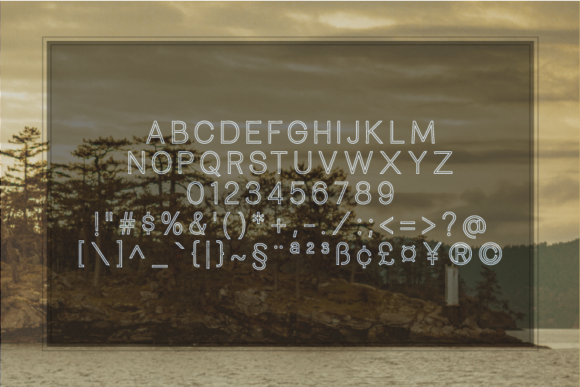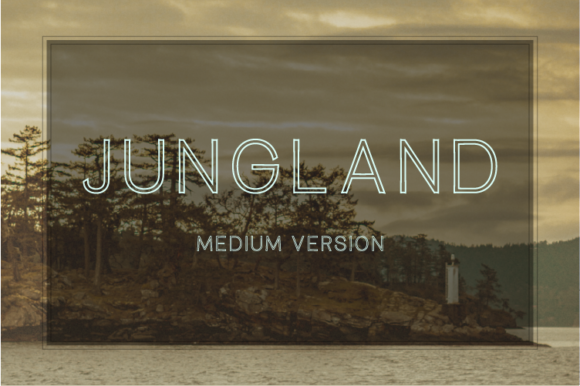
Introduction to Jungland Outline Medium Font
Jungland Outline is a geometric font family with a warm, engaging style.
It will elevate a wide range of design projects to the highest level, be it branding, headings, wedding designs, invitations, signatures, logos, labels, and much more .
Jungland Outline Medium Font offers exceptional quality and versatility, making it a valuable addition to your design toolkit. Whether you’re creating for personal projects or commercial use, Jungland Outline Medium Font delivers professional results.